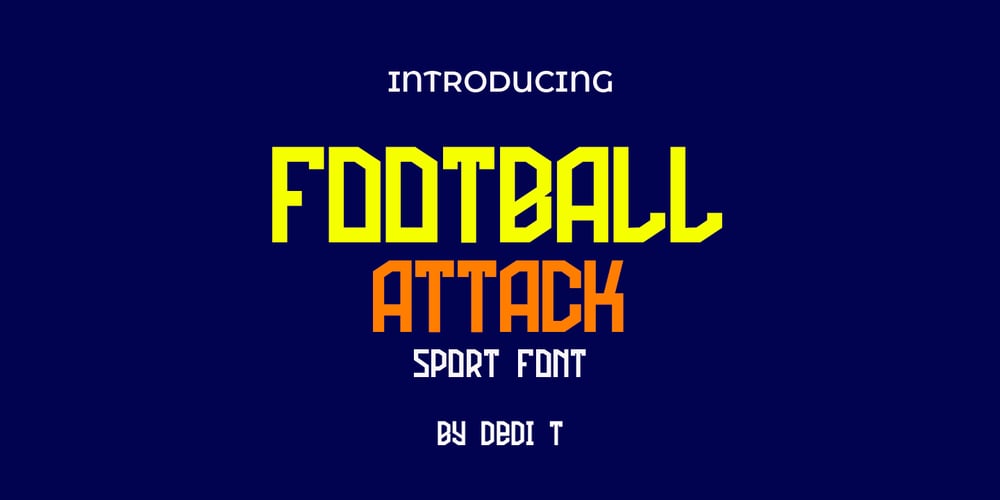
Football Attack Font Family was designed by Dedi Tri Anggara and published by PandAE86. Football Attack contains 1 styles and family package options. Football Attack is a display font inspired by and created for sports designers and their teams/organizations. With a strong focus on the sports branding industry, Football Attack works great in any branding, logos, magazines, films, sport poster, soccer shirt and many more.